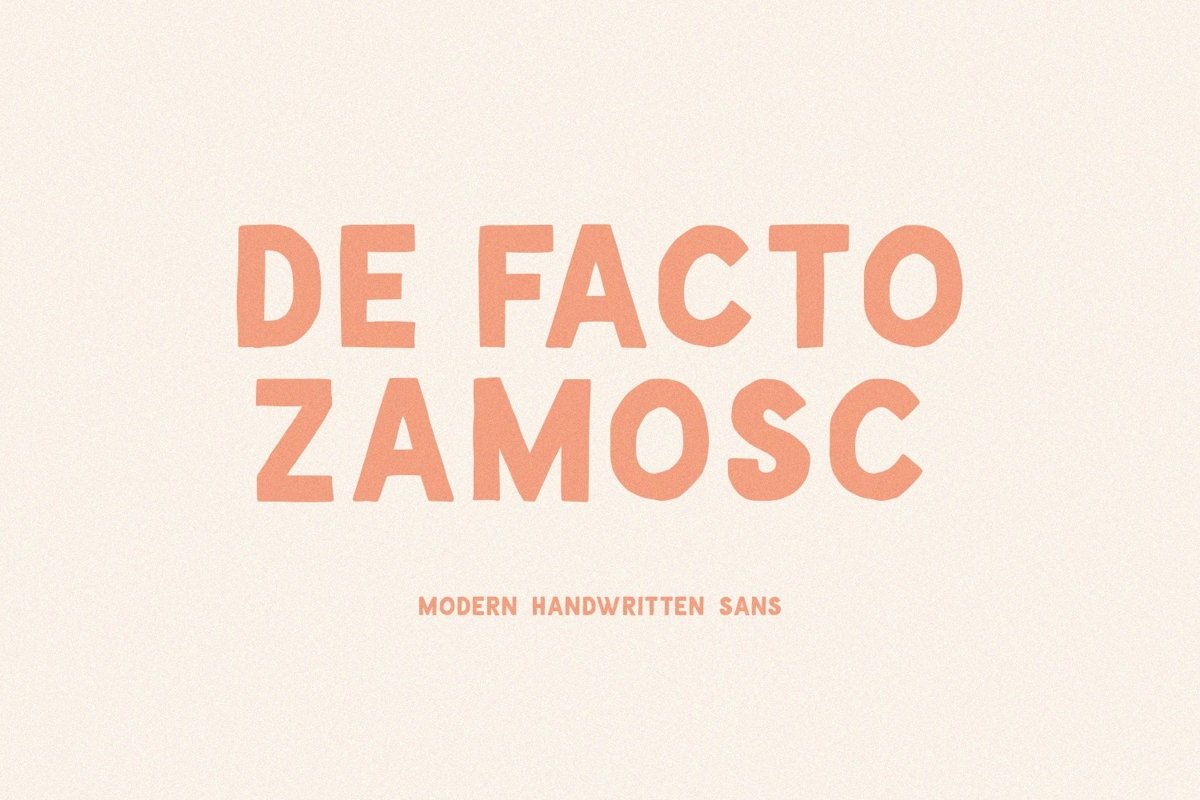
De Facto Zamosc
De Facto Zamosc is a sans font that we made by hand. This font is very beautiful, especially if combined with a script font.
De Facto Zamosc Type Features:
- Numerals & Punctuations
- Suitable for Headlines, Logotypes, Signs, Posters, Letterhead, T-Shirt and many more.
- Support Multilingual Language for western europe